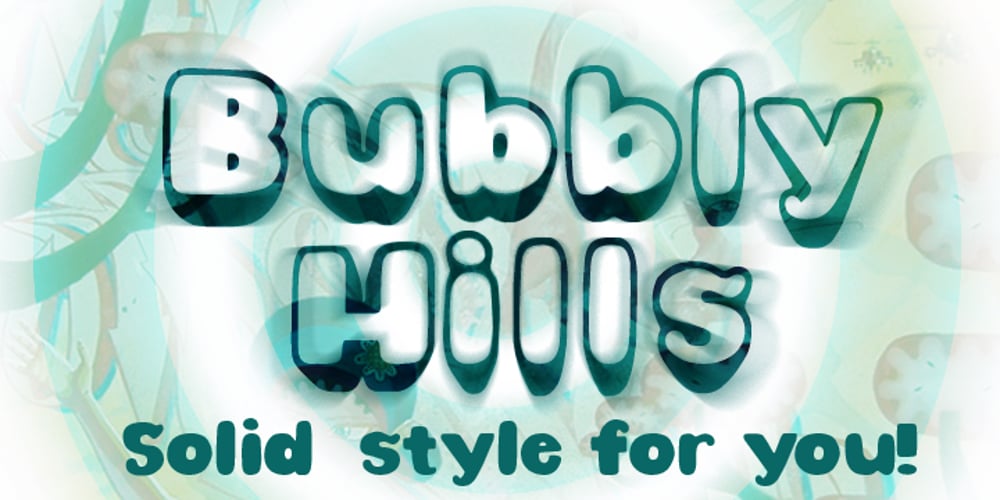
Bubbly Hills
Bubbly Hills font
Bubbly Hills Font Family was designed by Luke William Turvey and published by Okaycat. Bubbly Hills contains 3 styles and family package options. Bubbly Hills is the classic style bubble letter font! Combine the 3-D & flat letter styles, or use these styles separately….. many different looks can be created! There is a sprinkling of dingbats scattered around the alternates, just there to make this font extra fun and useful . Check it out! Bubbly Hills is extended, containing West European diacritics & ligatures, making it suitable for multilingual environments & publications.